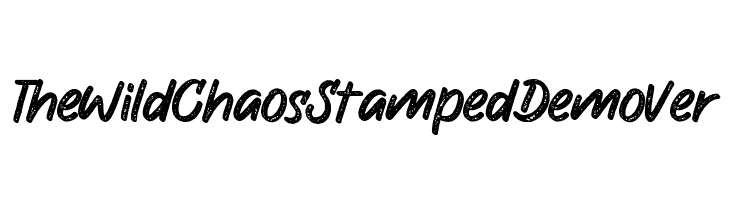
A bold, brush-style script font with dynamic and expressive strokes.
A bold, vintage script font with textured strokes and elegant loops.
A bold, rough script font with dynamic, flowing strokes and a handwritten appearance.
A bold, dynamic script font with flowing cursive letterforms.